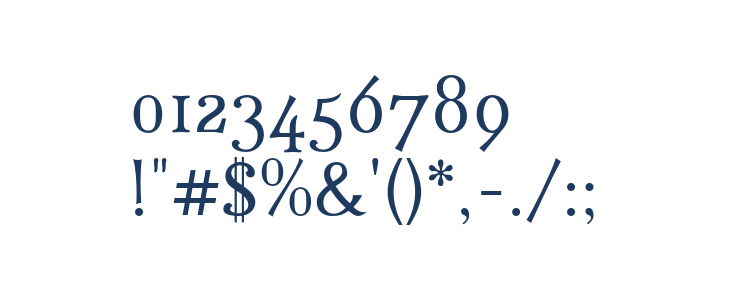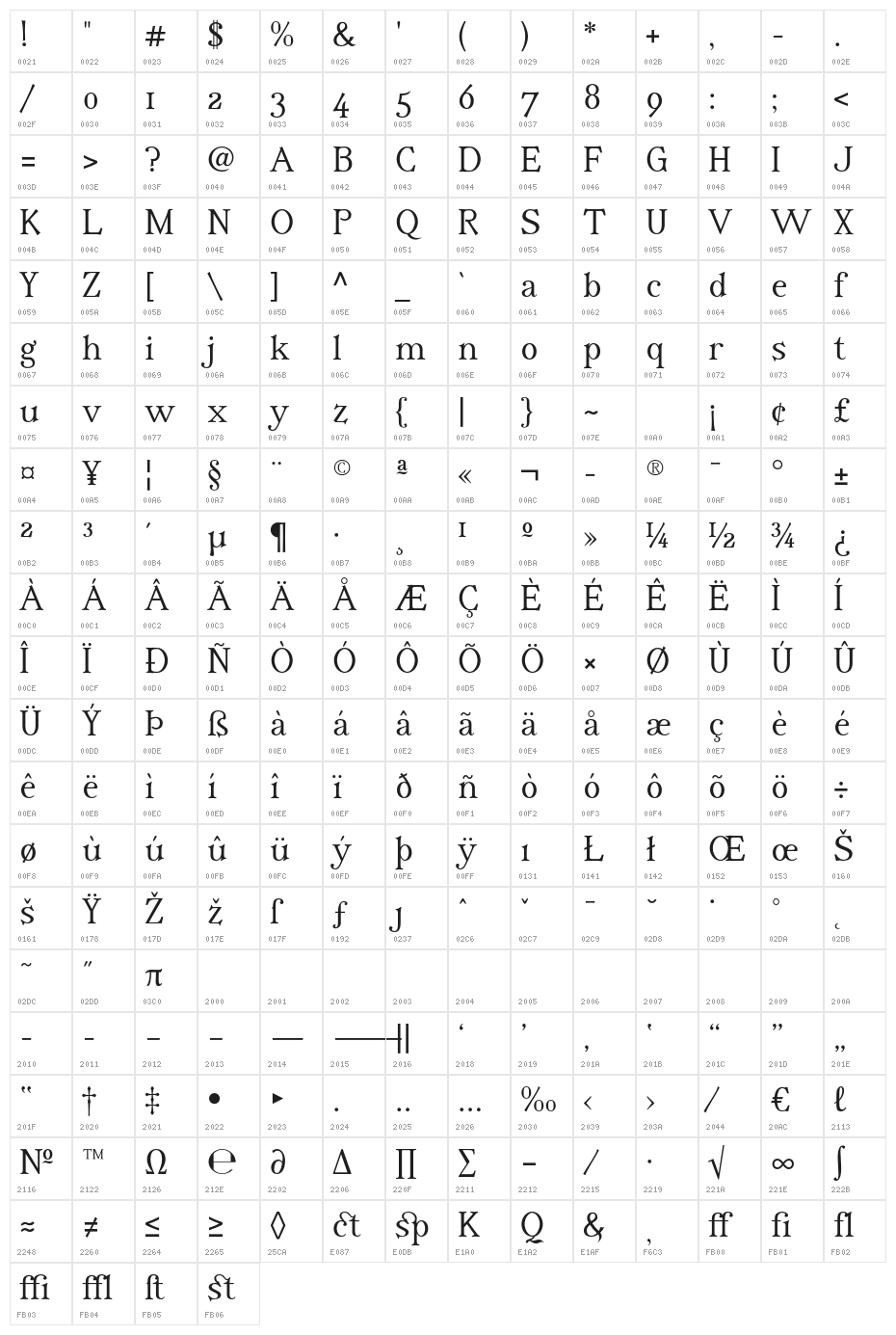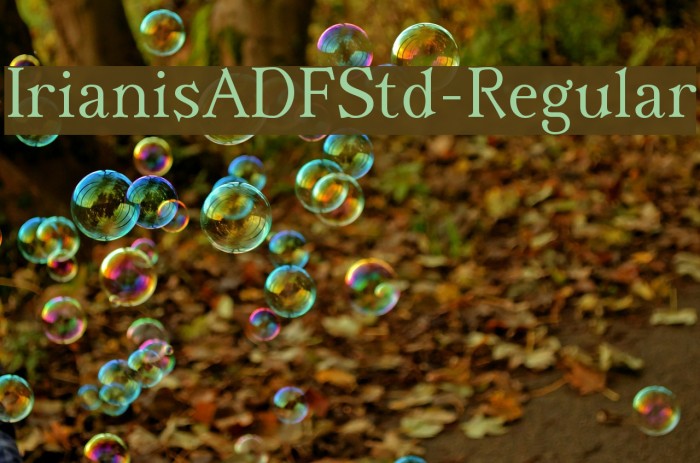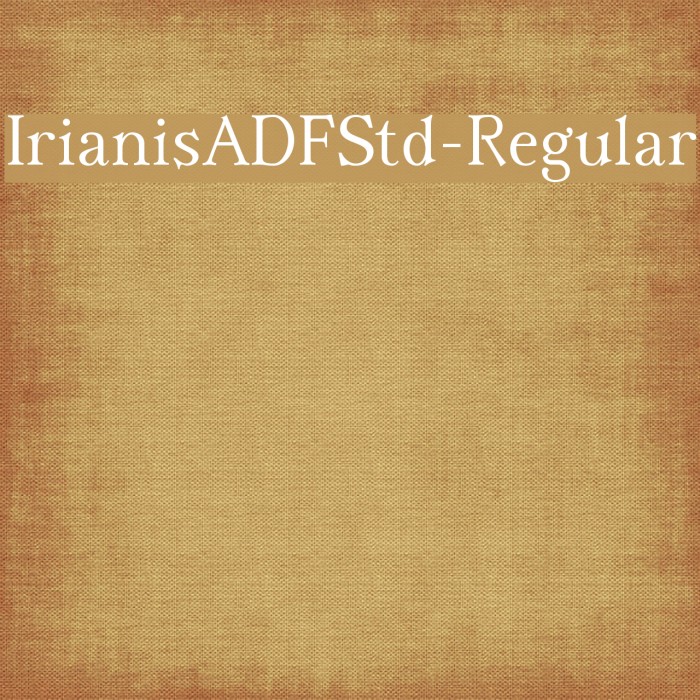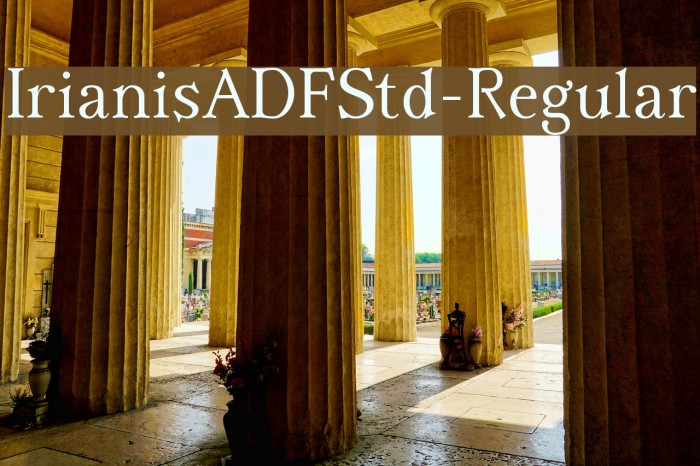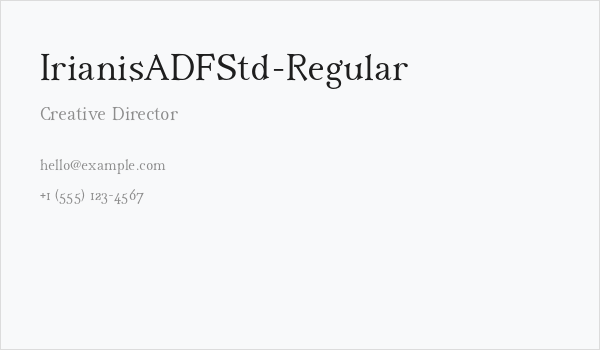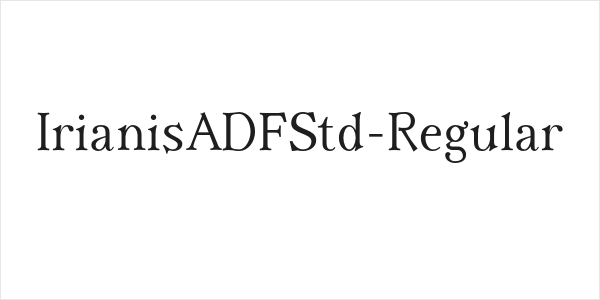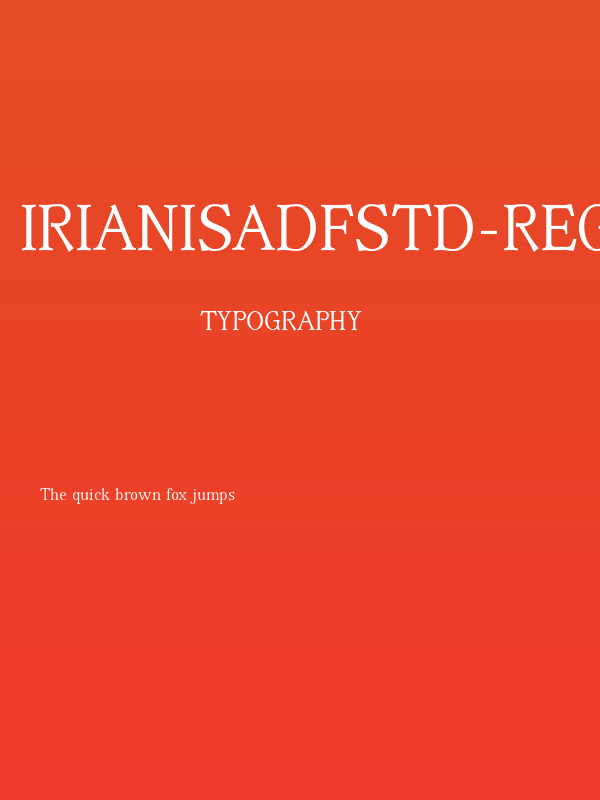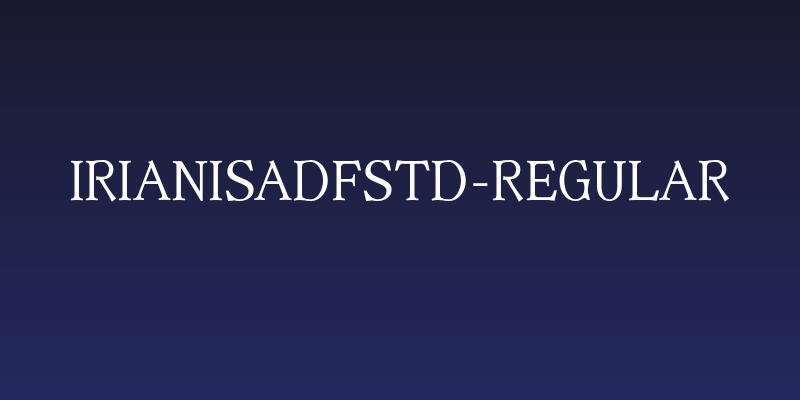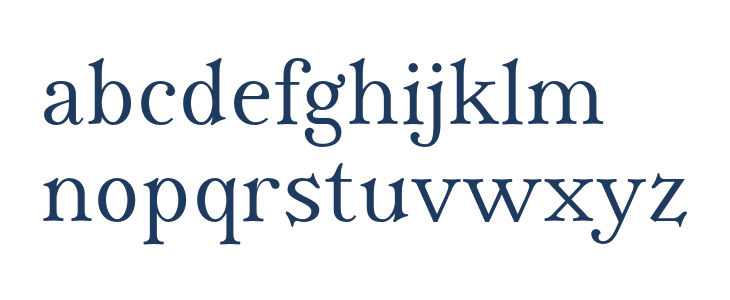
IrianisADFStd-Regular Font
IrianisADFStd-Regular Description
This font features a classic serif style with elegant and refined strokes. The uppercase letters are bold and commanding, while the lowercase letters maintain a consistent flow with subtle curves. The numerals are distinct, with a slight flair that adds character. Special characters are well-defined, complementing the overall aesthetic. The font's design is suitable for formal and professional settings, offering a timeless appeal that enhances readability and visual interest.
| Proposed Projects | Ideal for editorial design, book covers, formal invitations, and branding projects that require a touch of sophistication. |